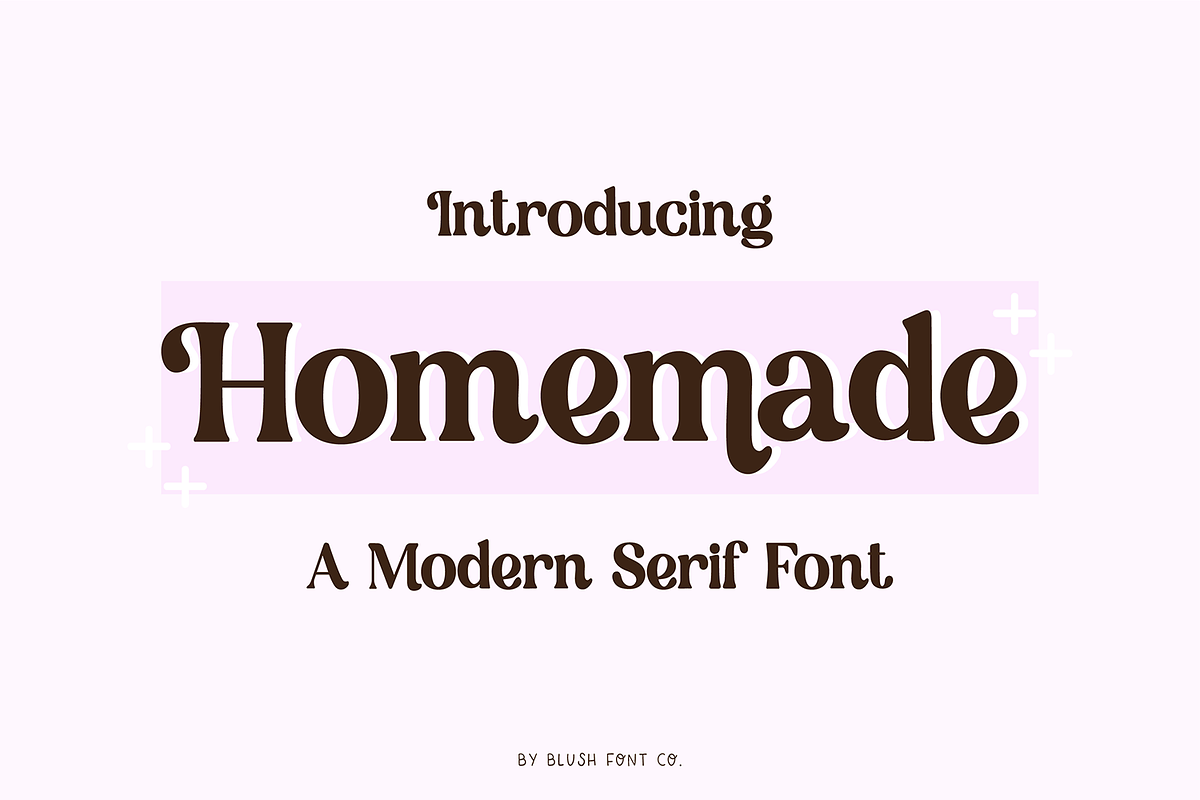
HOMEMADE Bold Modern Serif Font Free Download
HOMEMADE Bold Modern Serif Font Free Download is a striking typeface that blends classic serif elegance with bold, contemporary styling. With its strong lines, high contrast, and distinctive flair, HOMEMADE is perfect for headlines, branding, magazine layouts, packaging, and social media graphics that demand attention.
This font is ideal for creatives who want to convey confidence and sophistication in their work. Whether you’re building a fashion brand or designing editorial content, HOMEMADE adds a bold, modern touch that stands out beautifully in both print and digital formats.